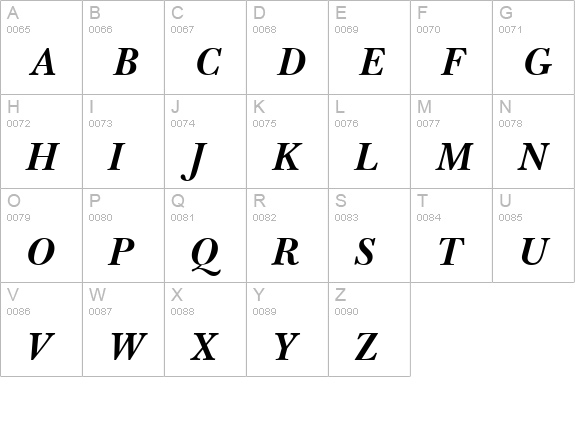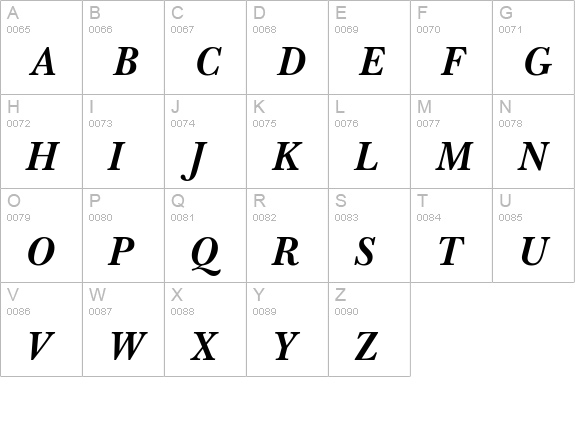
Baskerville OldStyle SSi Bold Font Details
Baskerville OldStyle SSi Bold is a strong, high-contrast variant in the Baskerville typeface family \xE2\x80\x94 well suited to headlines, attention-grabbing titles, and strong calls-to-action.
Baskerville OldStyle SSi Bold font exudes a timeless elegance with its classic serif style and bold weight. Perfect for creating impactful headings and titles, this font commands attention with its strong presence and sharp, clean lines. The Baskerville OldStyle SSi Bold font strikes the perfect balance between tradition and modernity, making it a versatile choice for a wide range of design projects. What sets this font apart is that it is freely available for download at FontsMarket.com. This means that you can easily access and use this sophisticated typeface in your creations without any cost. Whether you're designing a professional website, crafting eye-catching advertisements, or creating stylish printed materials, the Baskerville OldStyle SSi Bold font is sure to elevate your work with its refined aesthetic and bold impact.